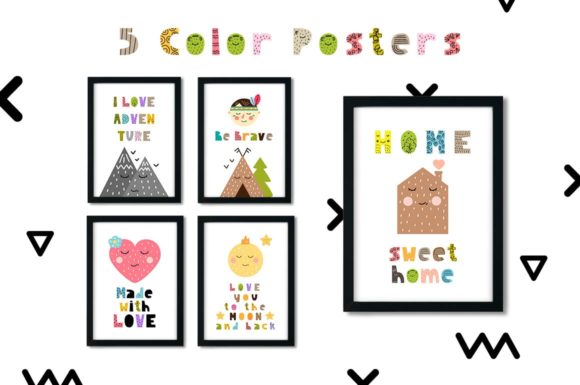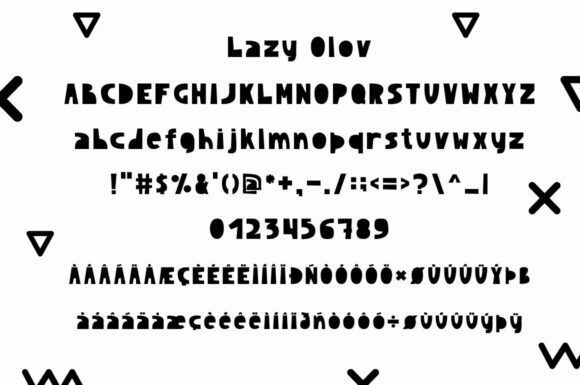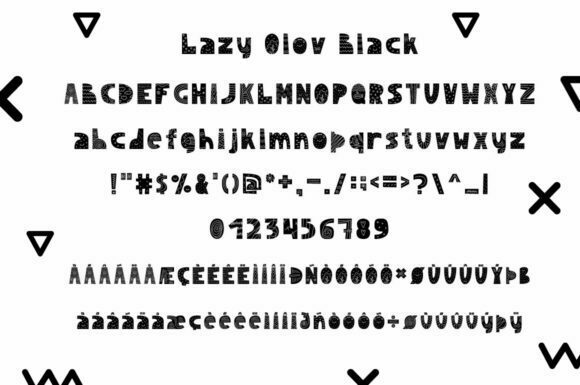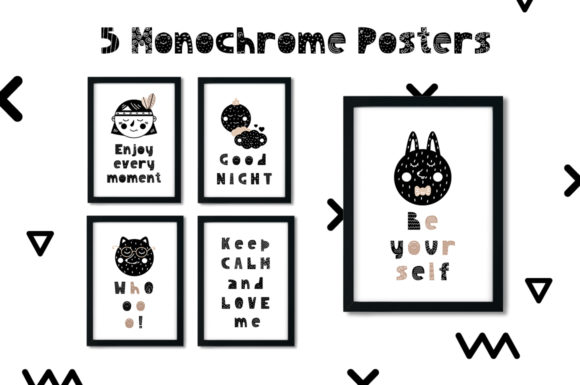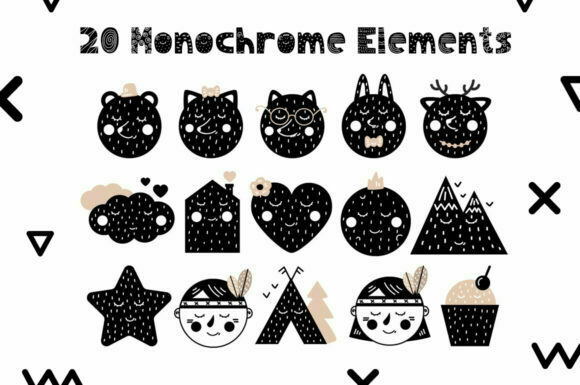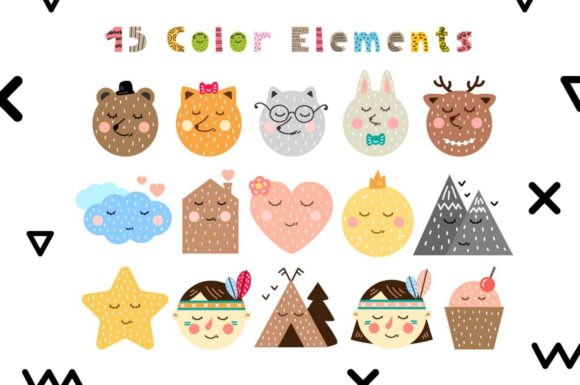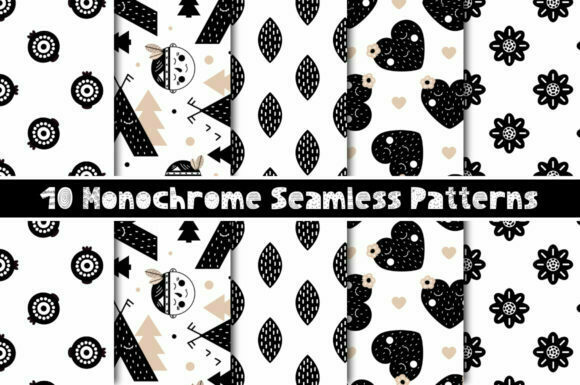
Lazy Olov Font
About Lazy Olov Font
Lazy Olov is an incredible color font that draws inspiration from Scandinavian designs, adding a unique and playful touch to any design project you embark on.
With its Scandinavian-inspired aesthetic, Lazy Olov captures the essence of simplicity, minimalism, and whimsical charm. The font’s vibrant colors and playful letterforms combine to create a visually captivating experience that is sure to delight and engage your audience.
Whether you’re working on branding, packaging, invitations, posters, or any other creative endeavor, Lazy Olov will inject a sense of joy and personality into your designs. Its versatility allows it to be used across various applications and mediums, bringing a touch of Scandinavian design excellence to every project.
Let Lazy Olov be the catalyst for unleashing your creativity. Its unique color variations and playful feel open up a world of possibilities, allowing you to craft designs that are truly one-of-a-kind. Stand out from the crowd and infuse your work with the distinctive charm of Lazy Olov.
Whether you’re creating for personal projects, professional branding, or anything in between, Lazy Olov will leave a lasting impression with its Scandinavian-inspired flair. Embrace this incredible color font and witness how it elevates your designs to new heights, captivating and enchanting your audience in the process.